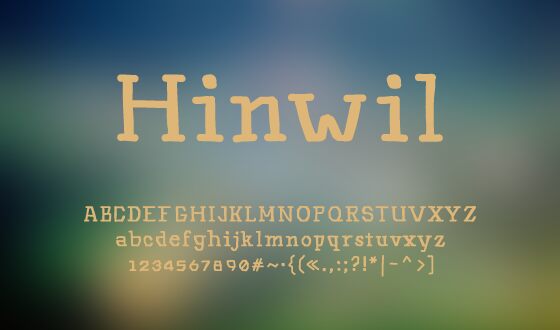
Hinwil, created by David Pache for helvetic brands, is a free techno display font with an unexpectedly handmade edge. Its tall, open letters combine squared construction, uneven stroke widths, and softly blunted ends to form a mechanical silhouette that feels cut or stamped rather than digitally polished.
It can turn a title into a rough workshop sign, making it especially apt for maker events and industrial-themed posters. Album covers and streetwear graphics suit its wiry, irregular forms. The likely audience is designers seeking technology references with a tactile, low-fi attitude rather than sleek futurism.
Hinwil is a Mcane-Manuaire hybrid typeface created using an iPad. It is part of an ongoing personal project to create a set of fonts using a touchscreen interface, some of which may be reworked into professional versions.